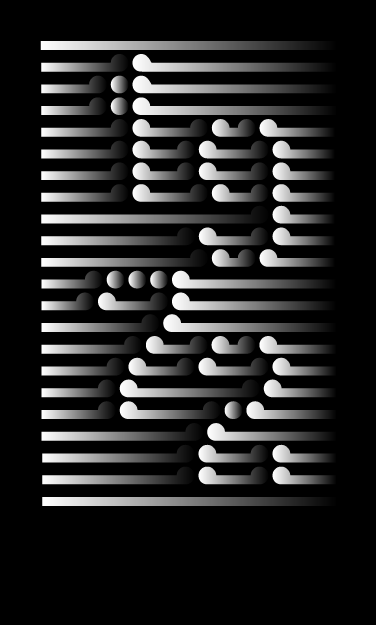
• I bought one of those 3D Pin Art things at a garage sale a couple weeks ago. Turns out making 3D impressions of "The Bird" doesn't hold the same cultural currency now as it did when I was in Junior High, so I decided to cash in another way and make some letters.
Cool font.
Incredible sample! How'd you go about making it? Looks like a bunch of different selections/gradients with texture...
Lovely. This reminds me of a New Zealand op-artist's canvases using maori motifs but I can't for the life of me remember his/her name. Now it's going to bug me.
Incredible sample.
I would give it if a 10 if you add numbers. fpr now a 9/10
@intaglio: I hope you remember the name of the artist, I'd love to see their work.
@emepar7: Nothing too crazy with the sample. Here's how it's done. Set the word(s) in Illustrator. Convert the type to outlines. Then in the Pathfinder window, under Shape Modes, option-click 'Add to Shape Area'. You should now have a vector grouping of all the separate shapes. Apply a black and white gradient to the group (you should see the gradient applied to each separate shape within the group). Put it on a black background and there you have it. Note: I then printed and photographed the sample before posting it here.
@jiffry101: Thanks for your vote. I will add numbers this week.
Aha! The ripples of the paper and random shadows were throwing me off :)
The more I see this font the more I like it...any chance of an apostrophe? Also I like all the chars except the E looks a bit like a K to me...maybe an alternate E and F with 5 "pins" on the top most (and bottom most) rows like the T?
@emepar7: Yes I think some random leaves were blocking the sun and creating the shadows. Excellent idea on the 'E' and 'F'. I've added those alternatives to the lowercase in addition to adding an apostrophe and period. More to come including numbers for sure.
i thought is was a photo of a three dimensional object!
Numbers added.
His name is Gordon Walters, and during the 'Sixties he did lots of canvases featuring this motif.
Whole. Eee. Shit! A super worldwide high-five for that reference Intaglio. I've found my new love and I have you to thank for that. This one knocks me down. I love how he's able to interweave the black and white lines/shapes. I wish I could accomplish his same effect but my negative (white) space is thicker then the black space. I know very little about the Maori, Intaglio. Do you know how they would traditionally use these motifs? Tattoos? Textiles? Pottery?
I don't know much myself, inexcusable for an inhabitant I know. I'm not sure, but I think this particular form is a synthesis of a (punga)tree-fern frond. I suspect that each of the forms used in traditional maori carving "mean" something, and tell a story that can be read by those in the know. Not in as formalised a way as egyptian heiroglyphs, for instance, but a language nonetheless.
I believe you're right Intaglio. It looks like our man G. Walters was riffing on a geometrical version of something called the Koru: "The koru is the Māori name given to the new unfurling fern frond and symbolizes new life, growth, strength and peace. It is an integral symbol in Māori carving and tattoos." [wikipedia]
Great idea, well done!
Supremely awesome font, afrojet (and amazing sample, as usual).
my eyes are spinning from this...